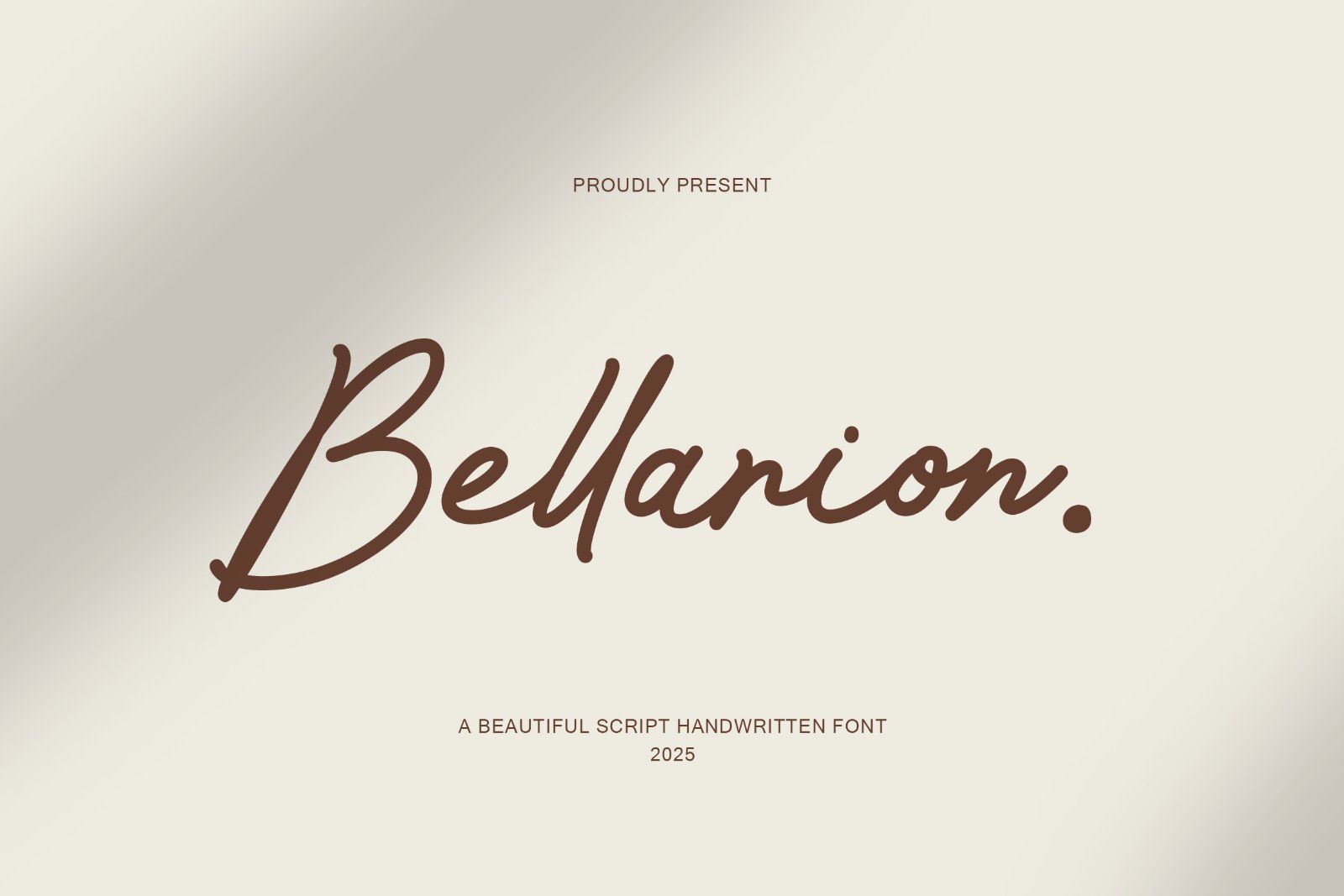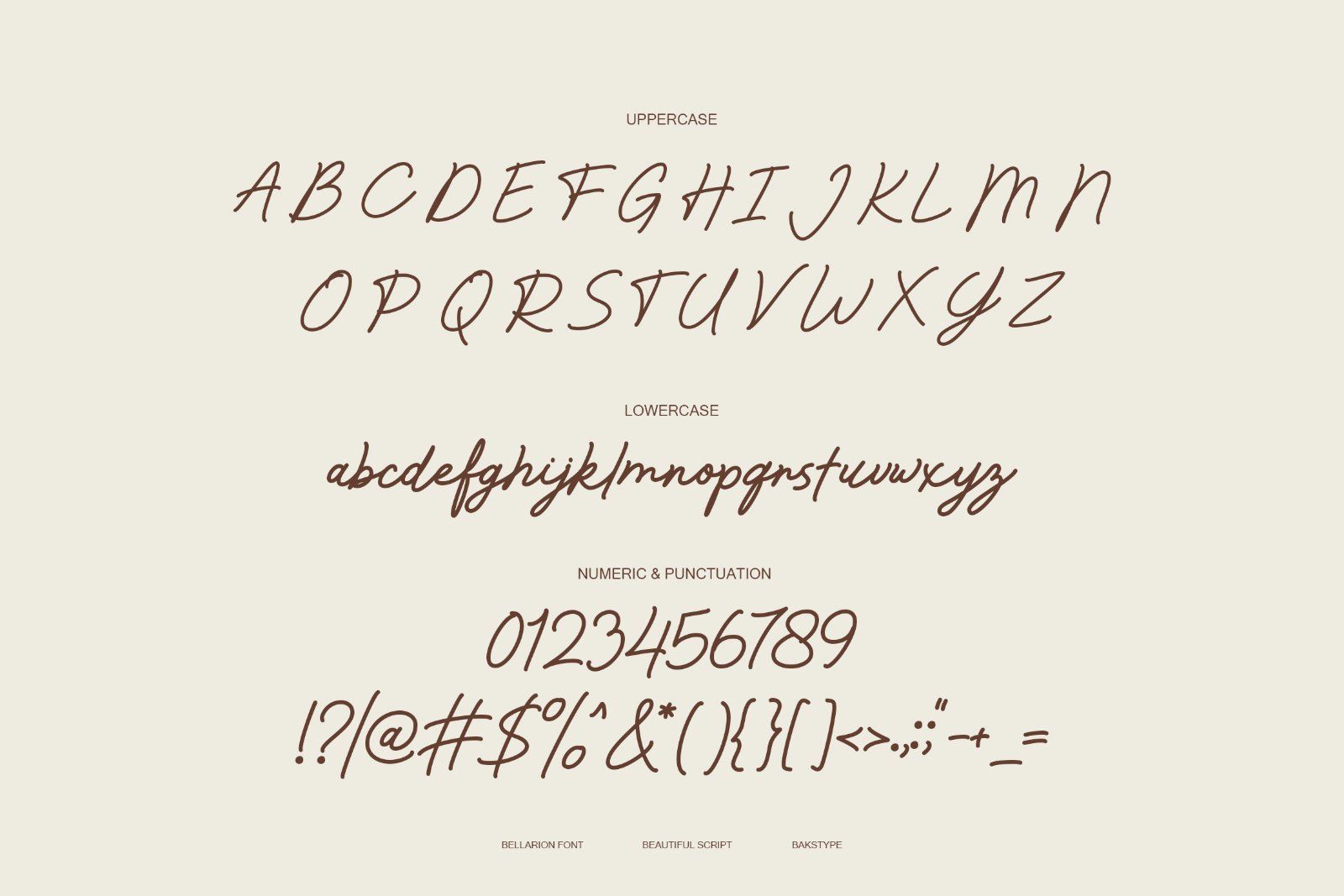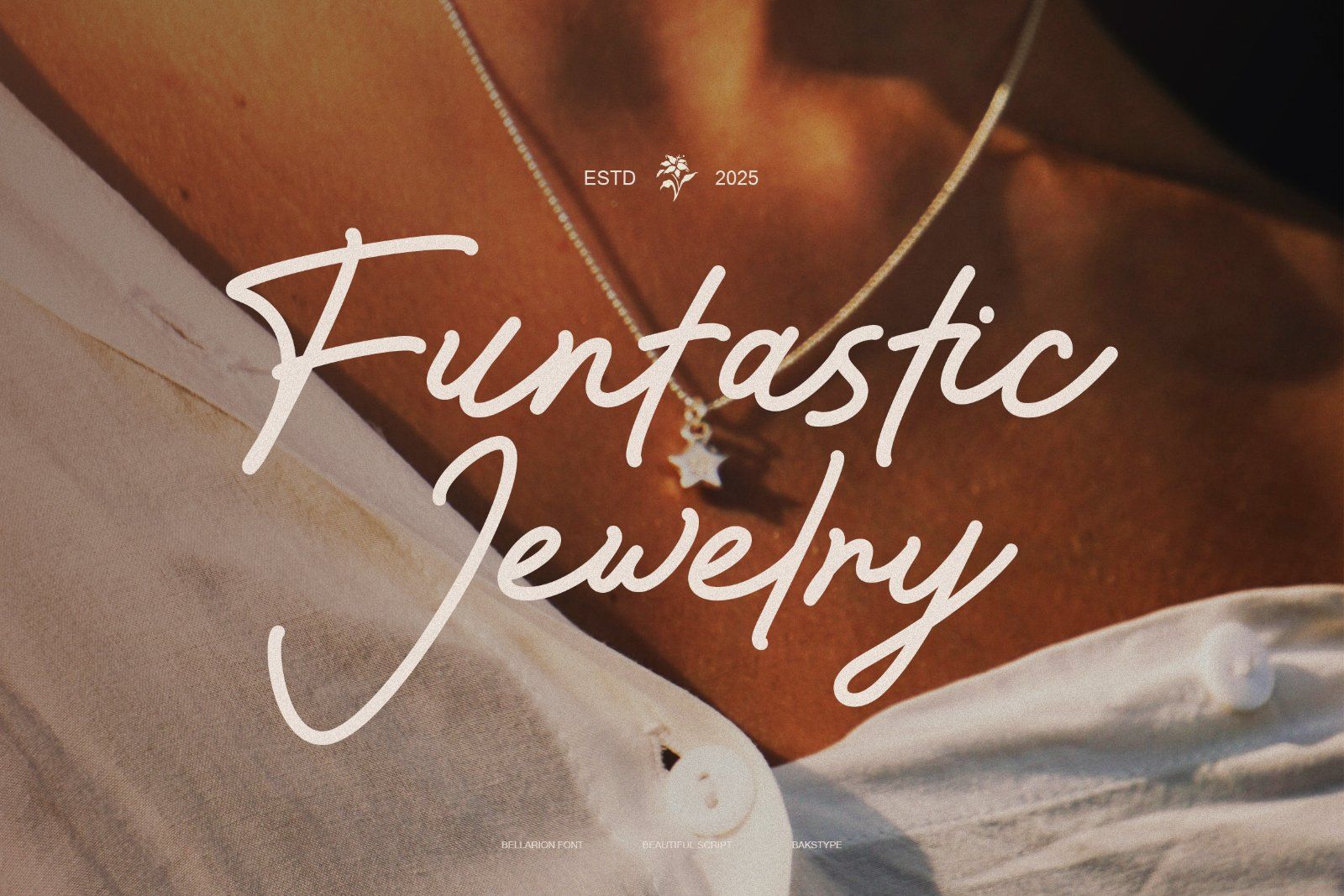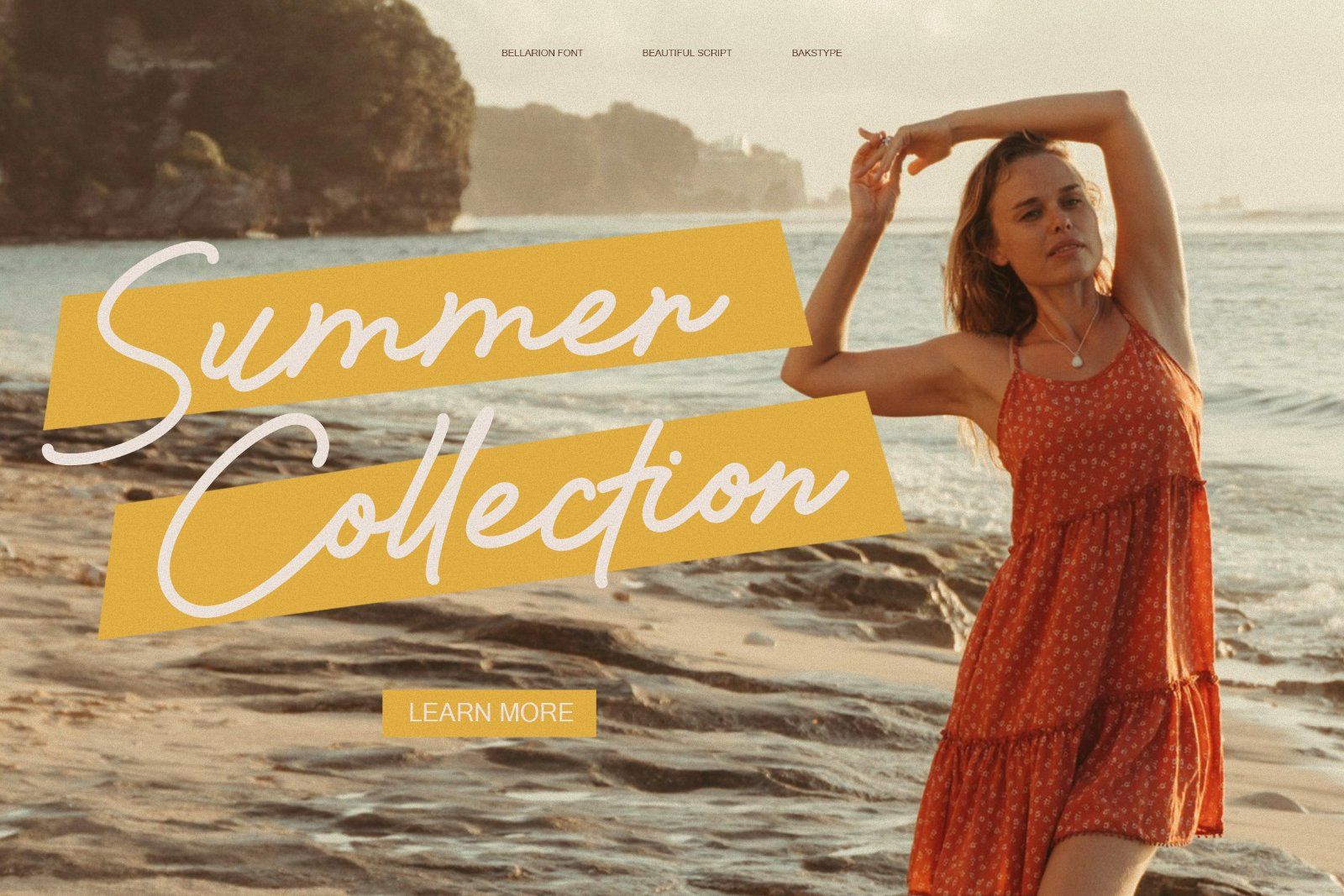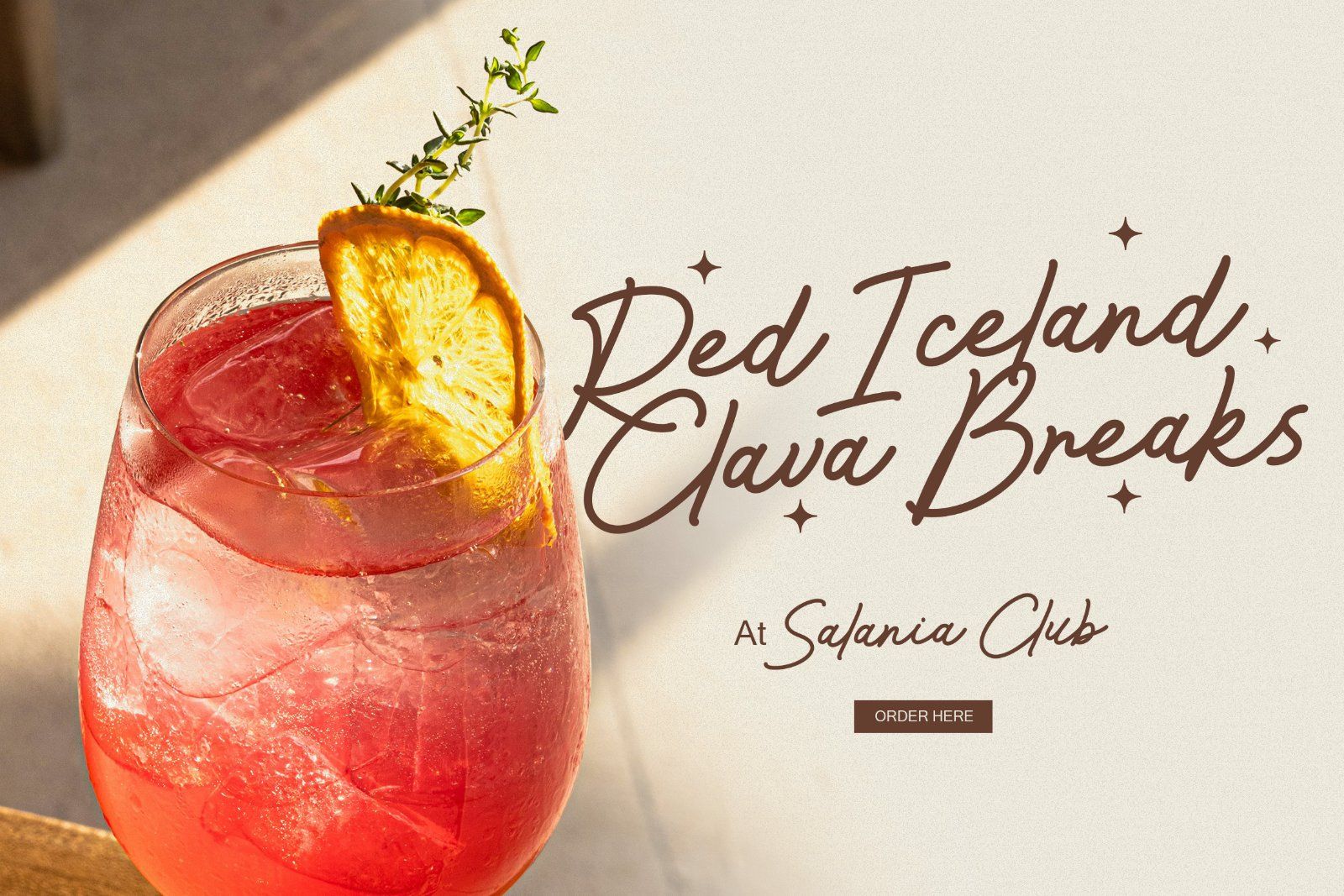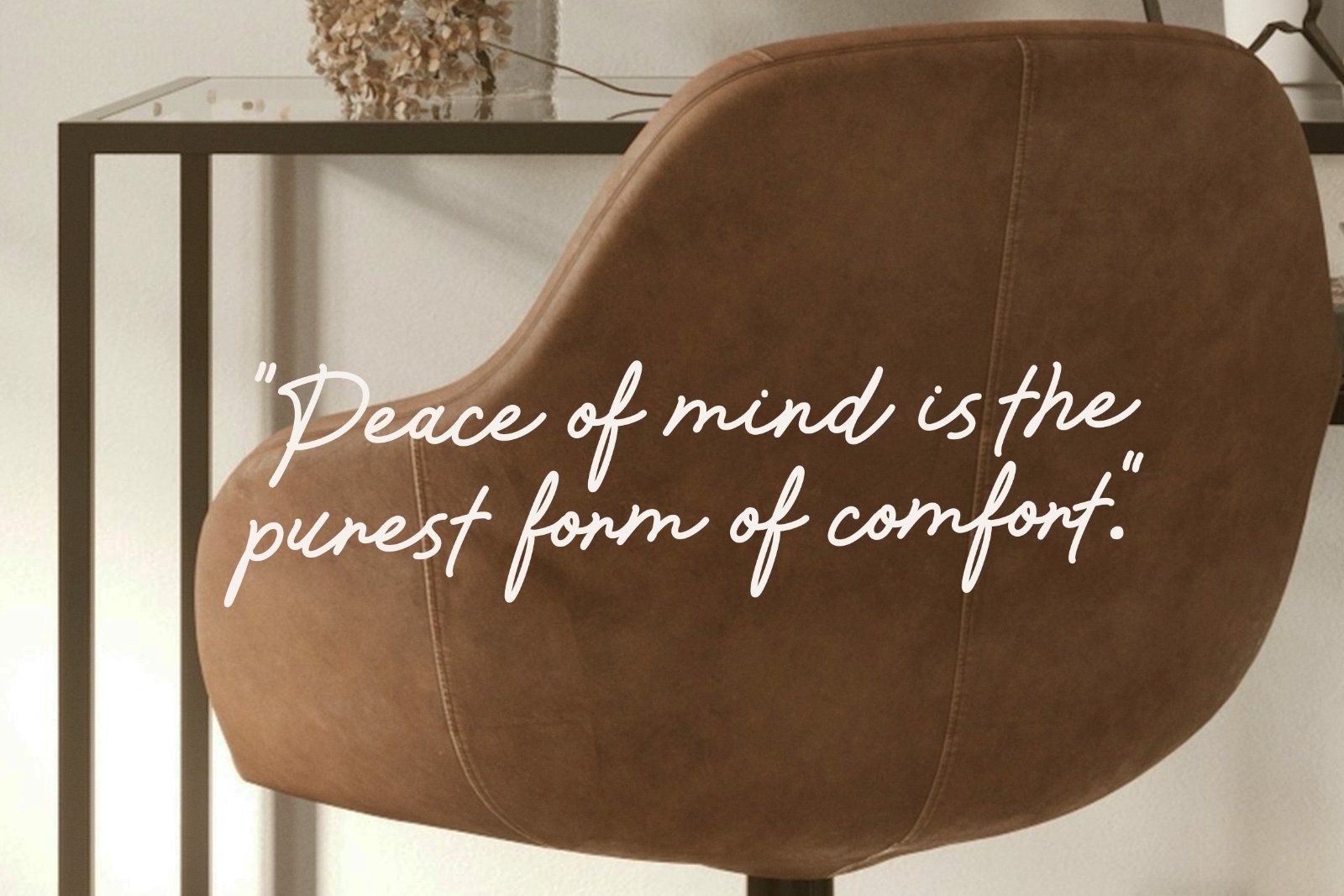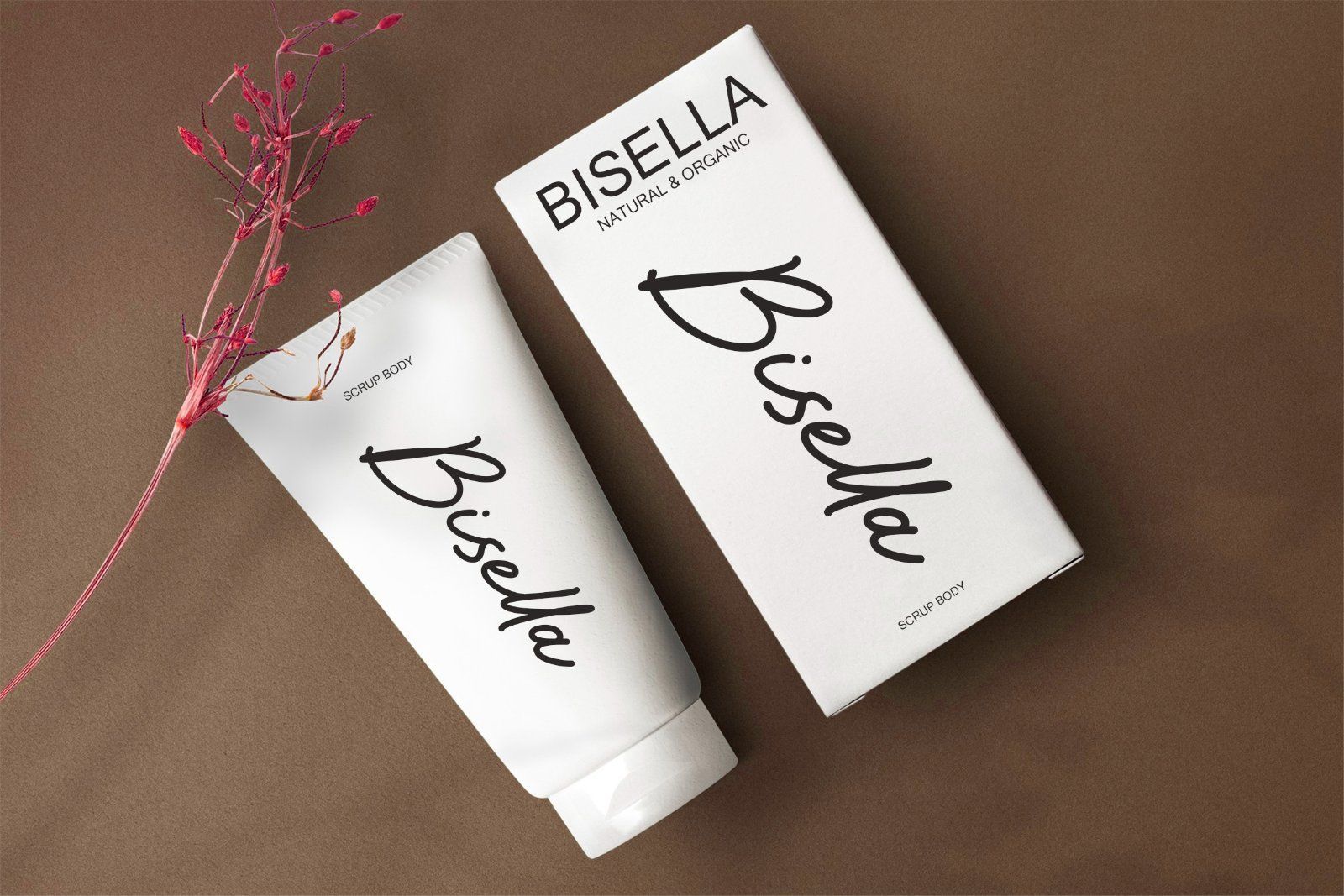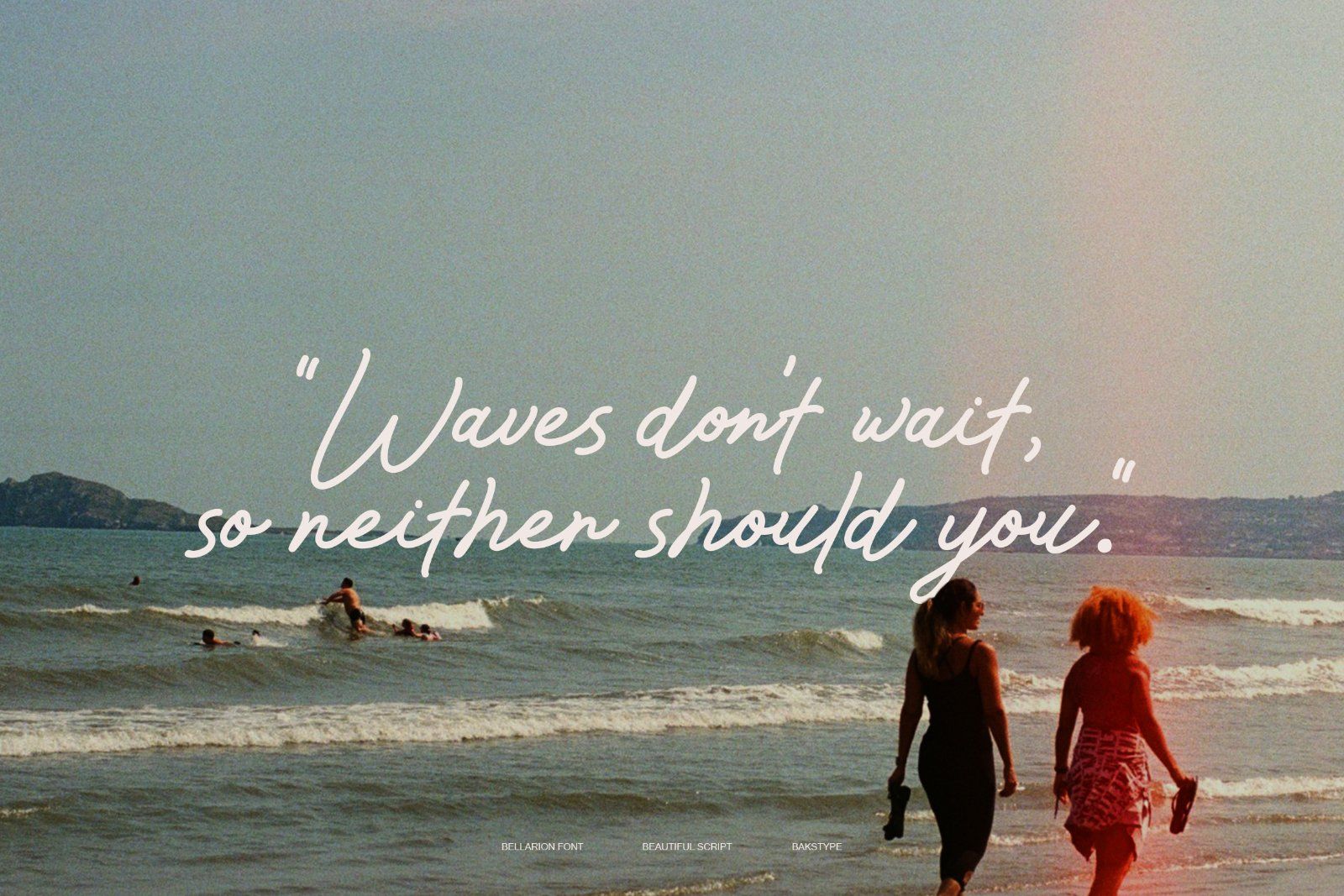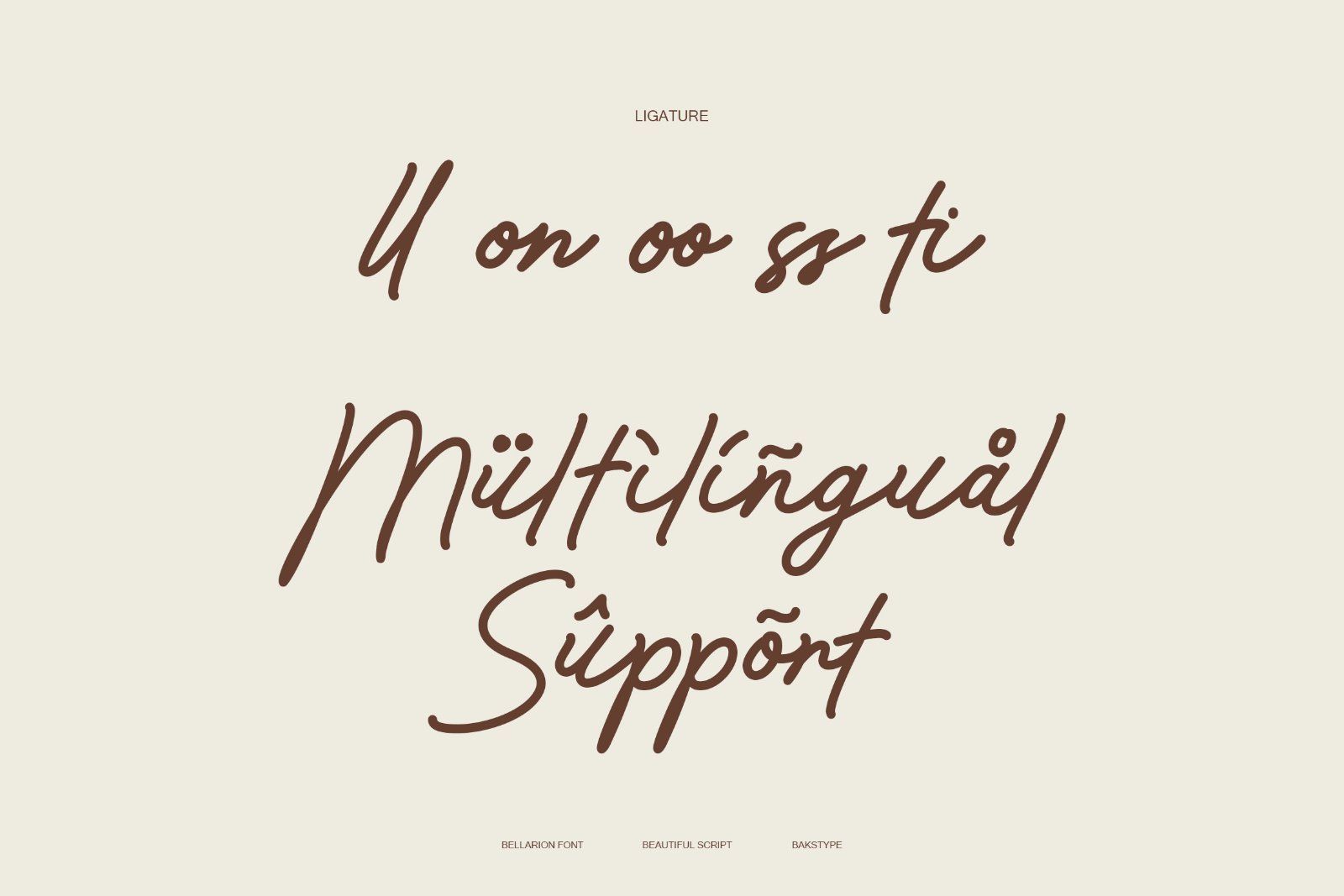
Bellarion is an elegant, authentic script font designed to give your projects a natural handwritten feel. Its fluid, smooth strokes are perfect for adding a personal and sophisticated touch to any design. Perfect for Logos & Branding, Wedding Invitations, Social Media Graphics, Product Packaging, T-shirt Designs & Merchandise.
• Uppercase
• Lowercase
• Numeric & Punctuation
• Ligature